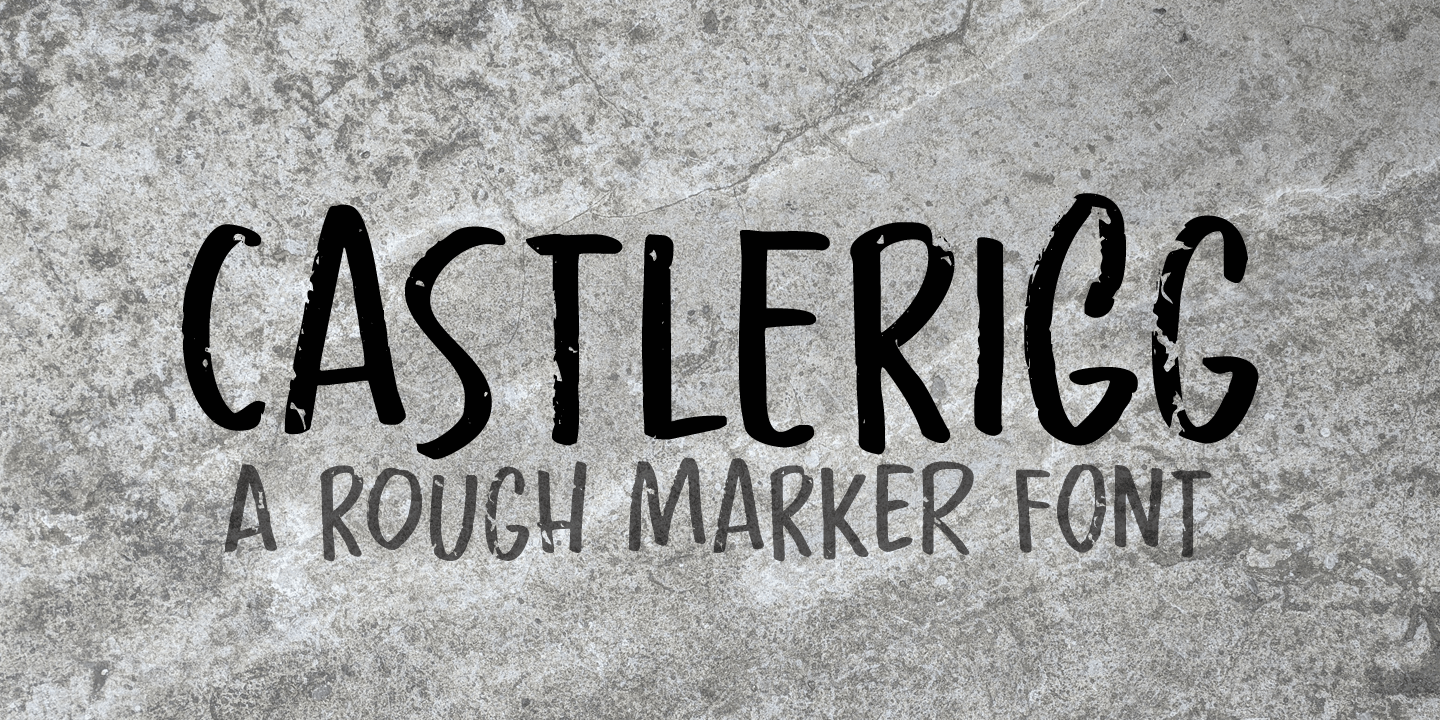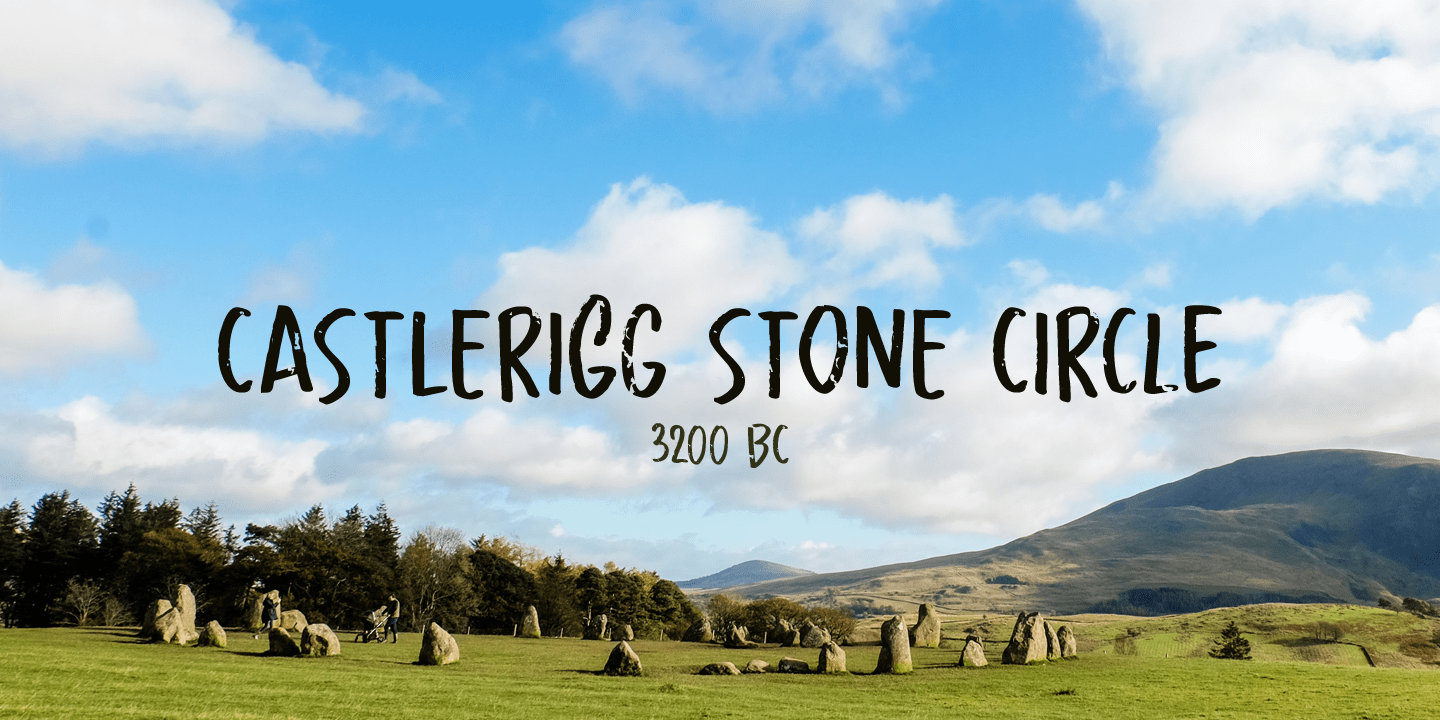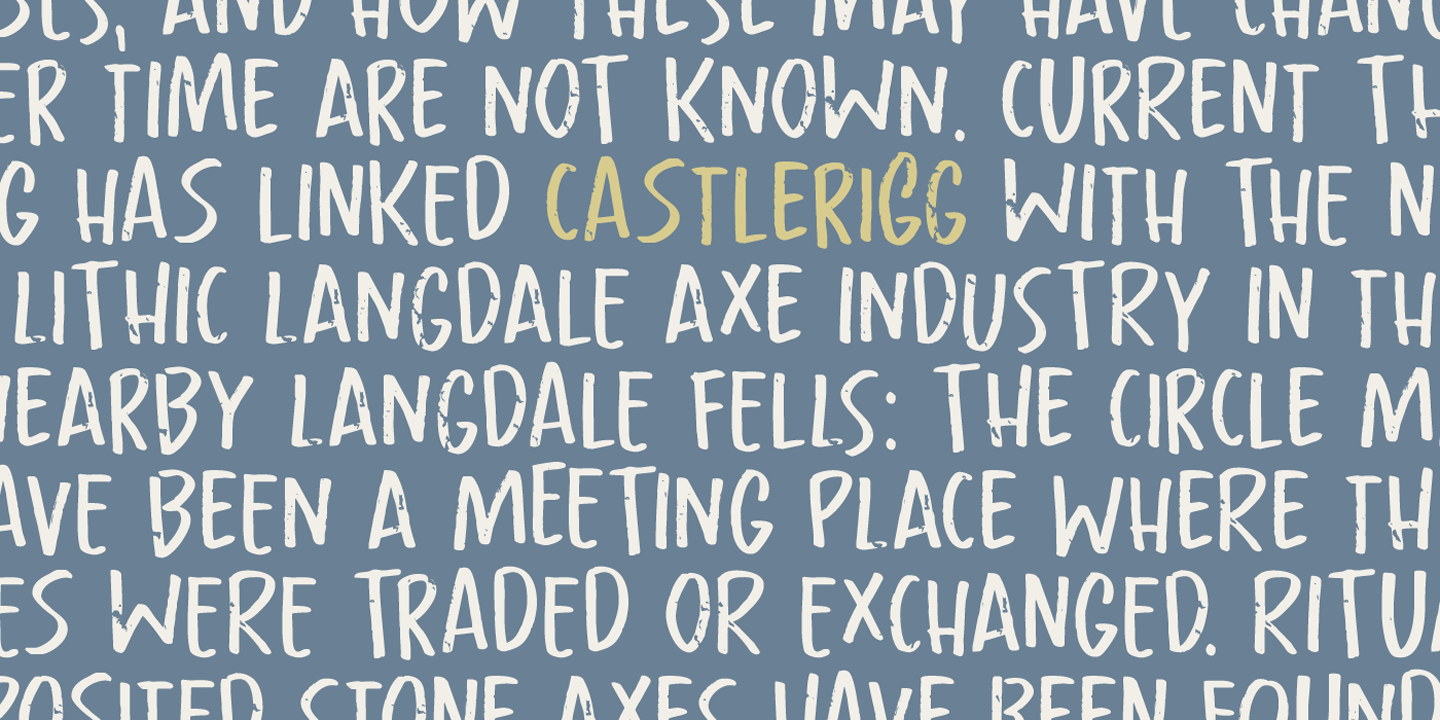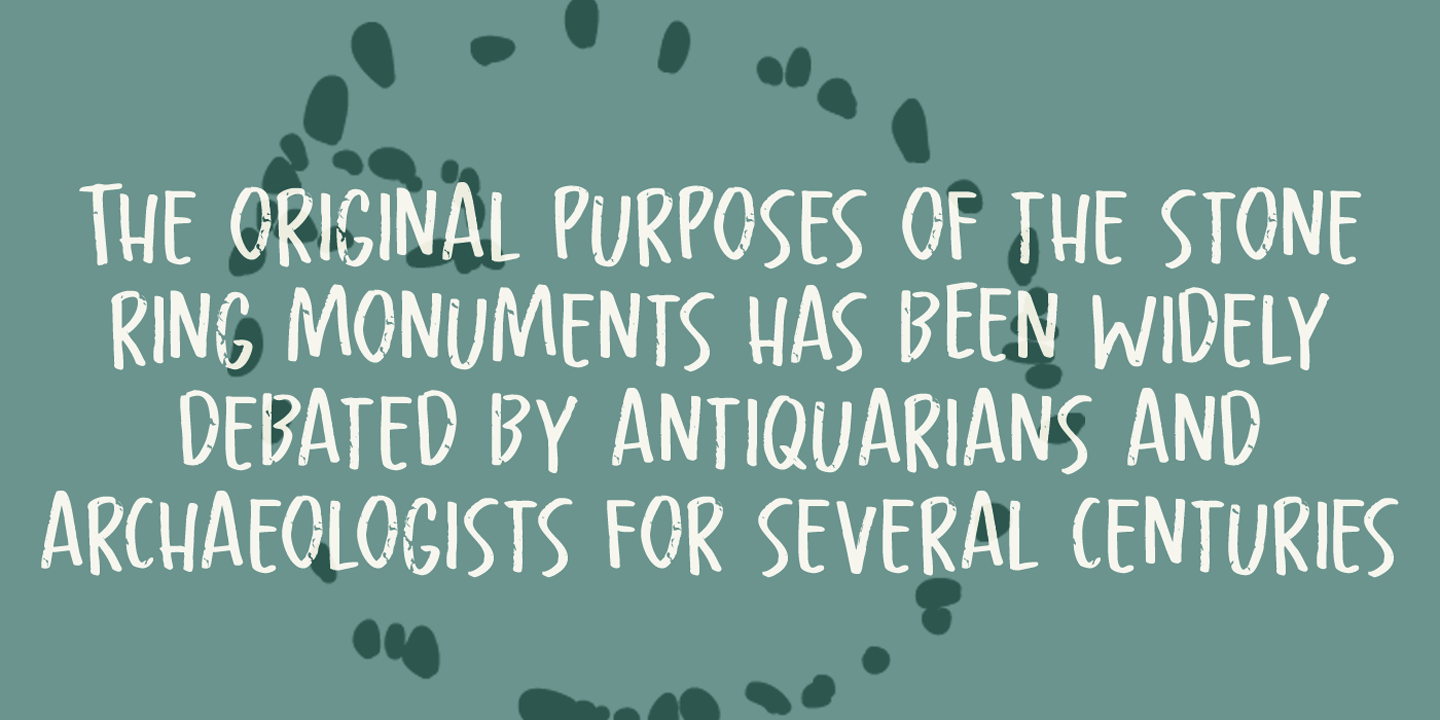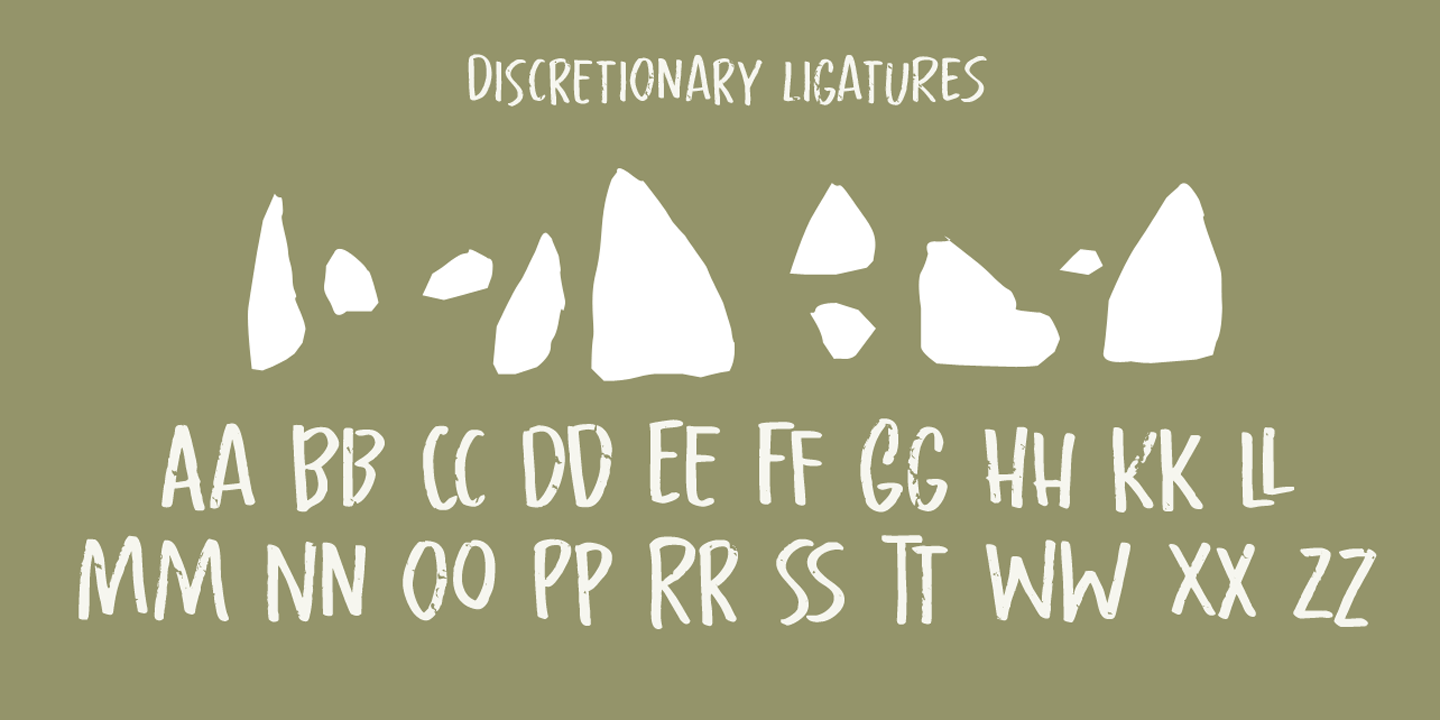
Castlerigg
Font Family by Hanoded
A long time ago, I lived and worked in the English Lake District. When I first arrived there, I camped out not far from a neolithic monument called Castlerigg Stone Circle. Castlerigg Stone Circle is one of the most beautiful stone circles in the whole of Britain; the views are great and it makes for a nice walk from Keswick.
This rather grungy font was made with a Sharpie pen I initially wanted to throw away, because it was dry, but then decided I could at least get one more font out of it. The result is Castlerigg - a rather neolithic looking all caps font.
Castlerigg comes with double letter ligatures for the lower case.